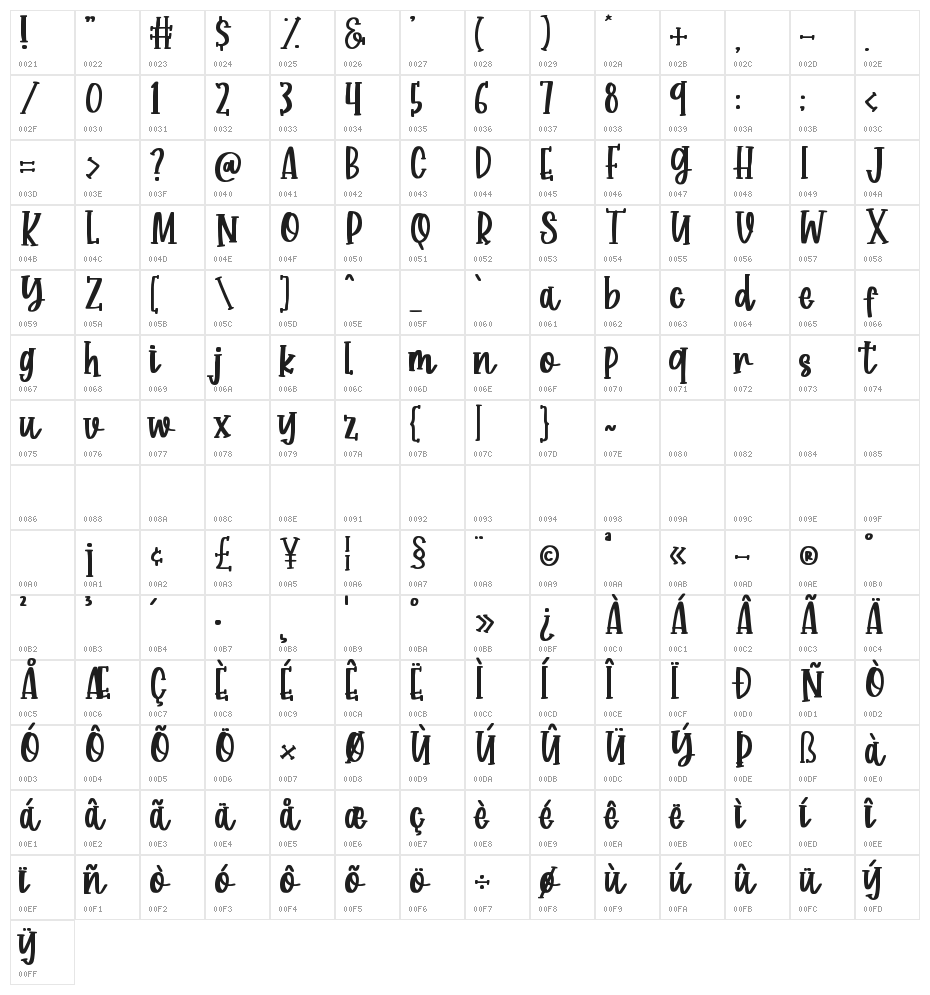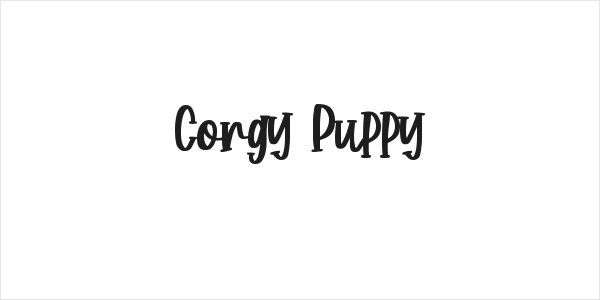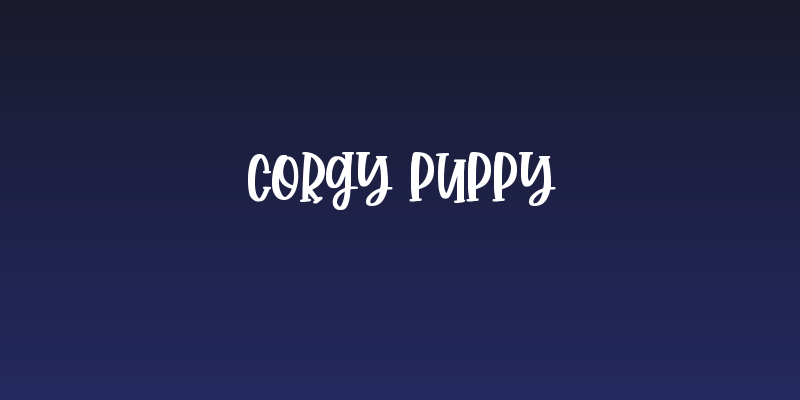
Corgy Puppy Font
Corgy Puppy Description
This playful and whimsical font features a handwritten style with a lively and energetic appearance. The characters are bold and slightly irregular, giving them a friendly and approachable feel. The uppercase letters are tall and narrow, while the lowercase letters have a more rounded and casual look. The numbers and special characters maintain the same playful aesthetic, making the font versatile for various creative projects. The strokes are consistent in width, providing a uniform look across all characters. This font is ideal for projects that require a fun and informal touch.
| Proposed Projects | Great for children's books, playful branding, greeting cards, and social media graphics. |